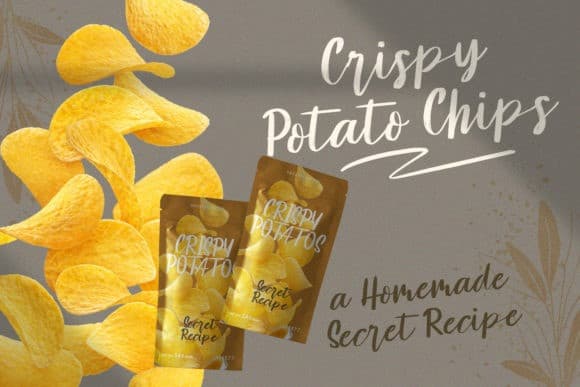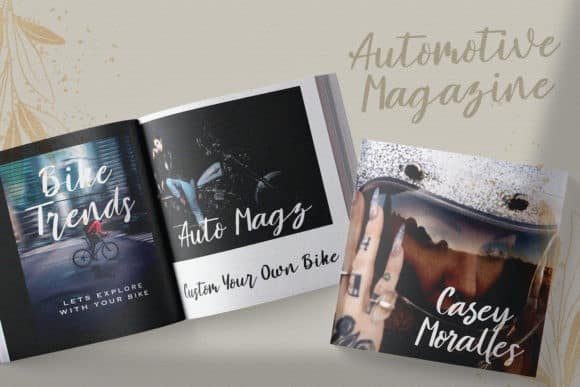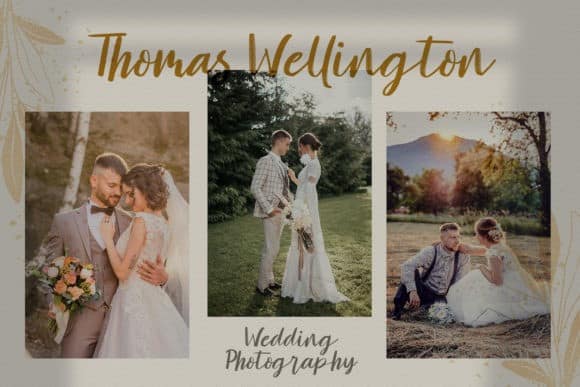
Amelliz Brush Font
Amelliz Brush Font is simple cute multipurpose handmade typeface, suitable for many book, quotes, logo , heading , title etc. It’s designed and shared by StringLabs. It’s an exquisite handwritten font, created with the help of an elegant brush pen. Fall in love with its incredibly versatile style and use it to create gorgeous wedding invitations, beautiful stationary art, eye-catching social media posts, and much more!